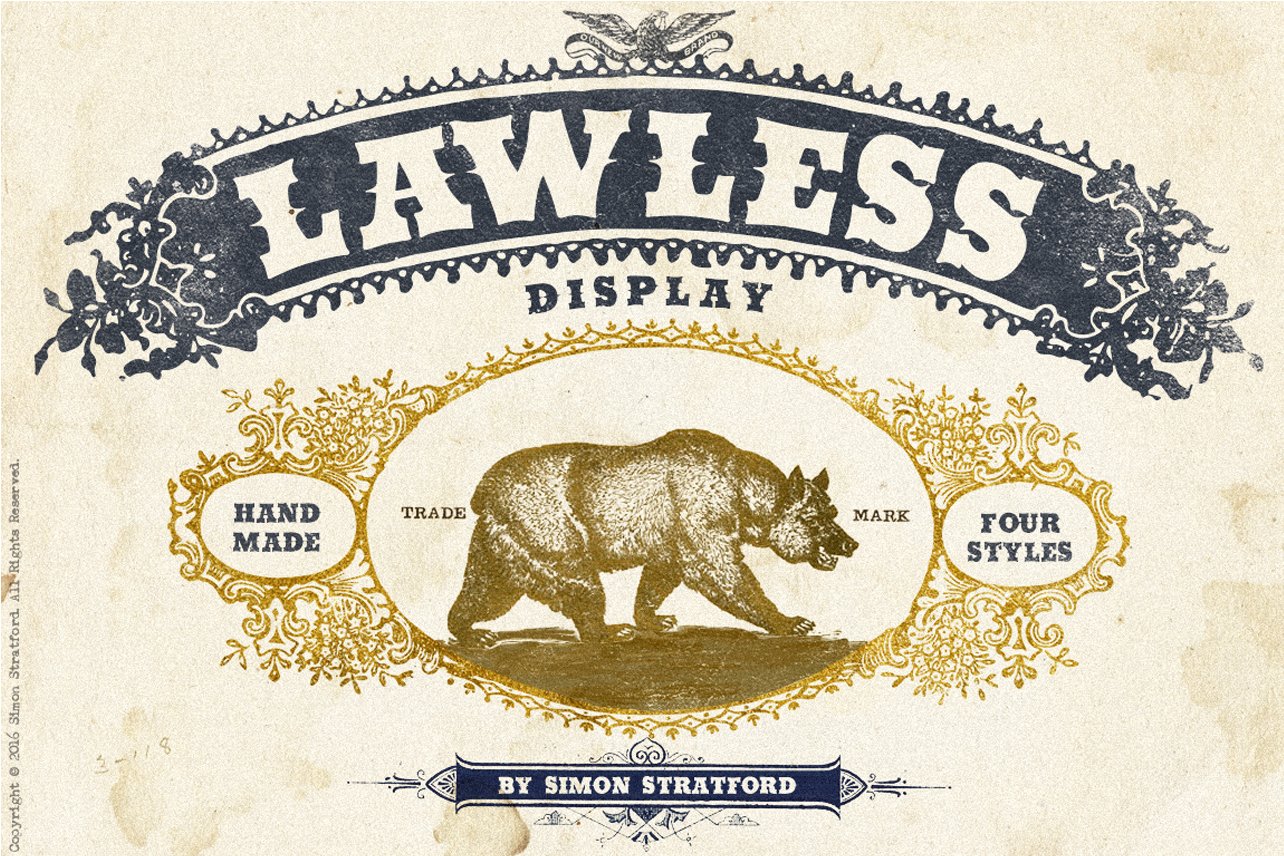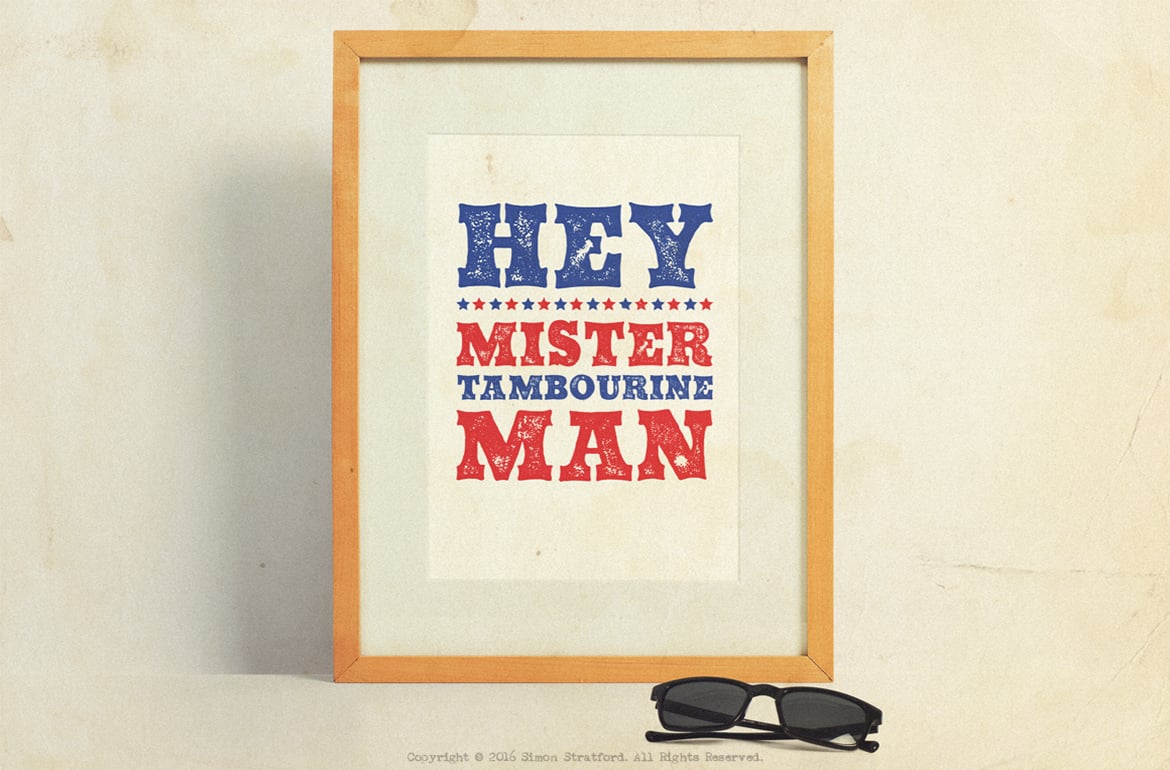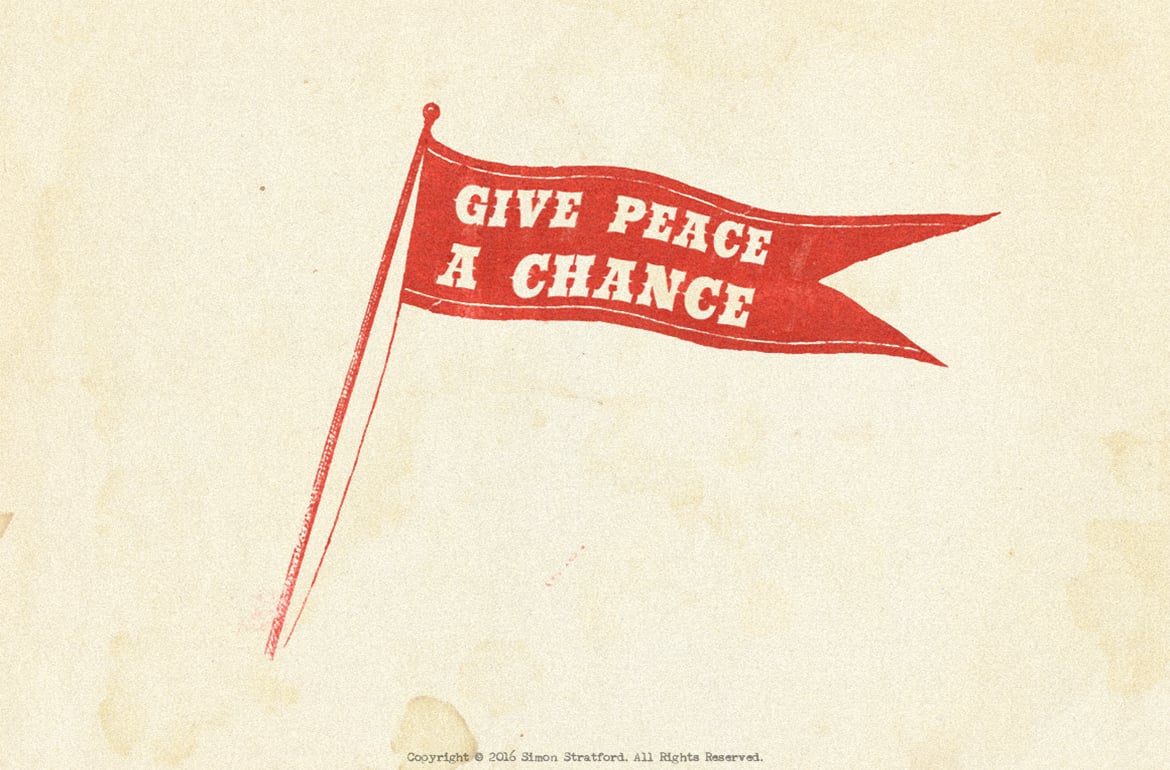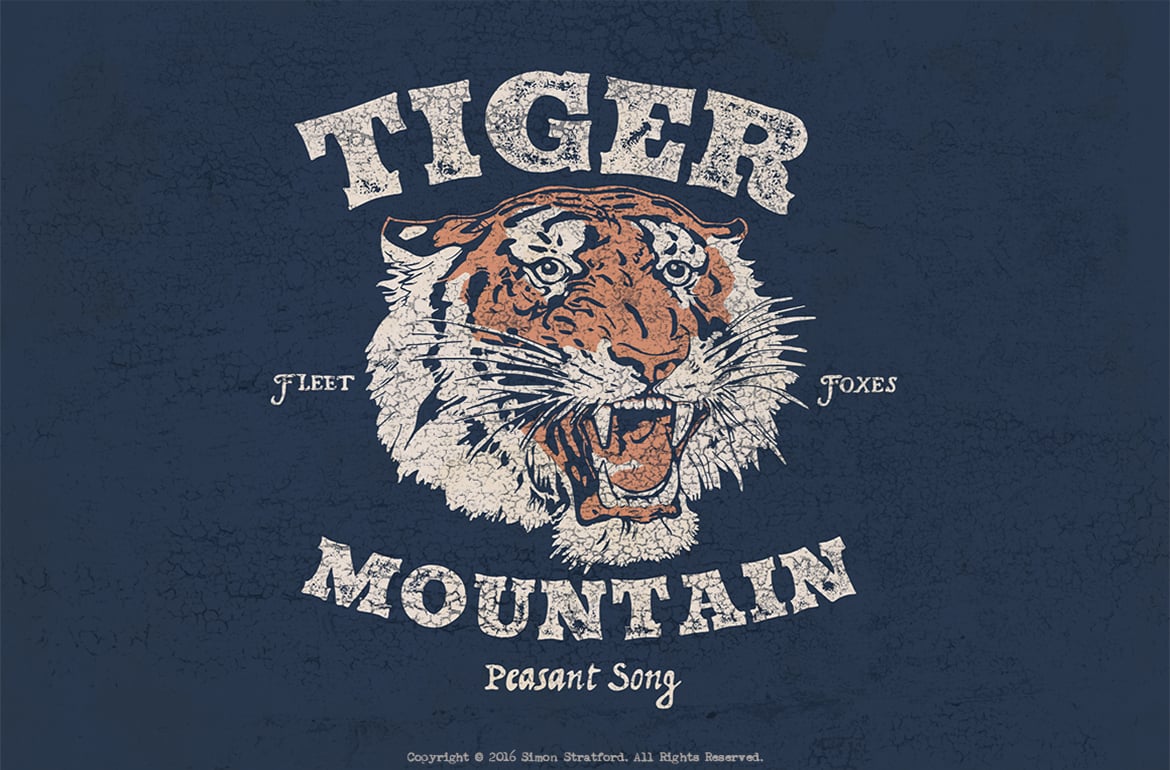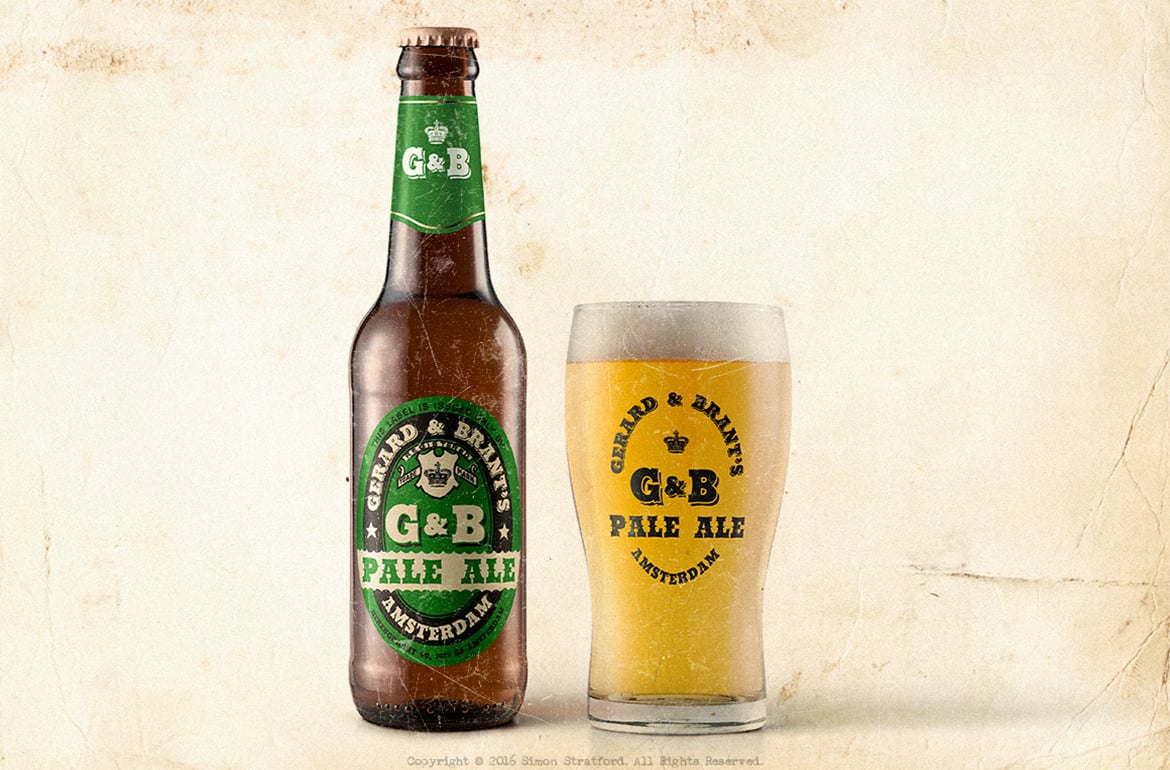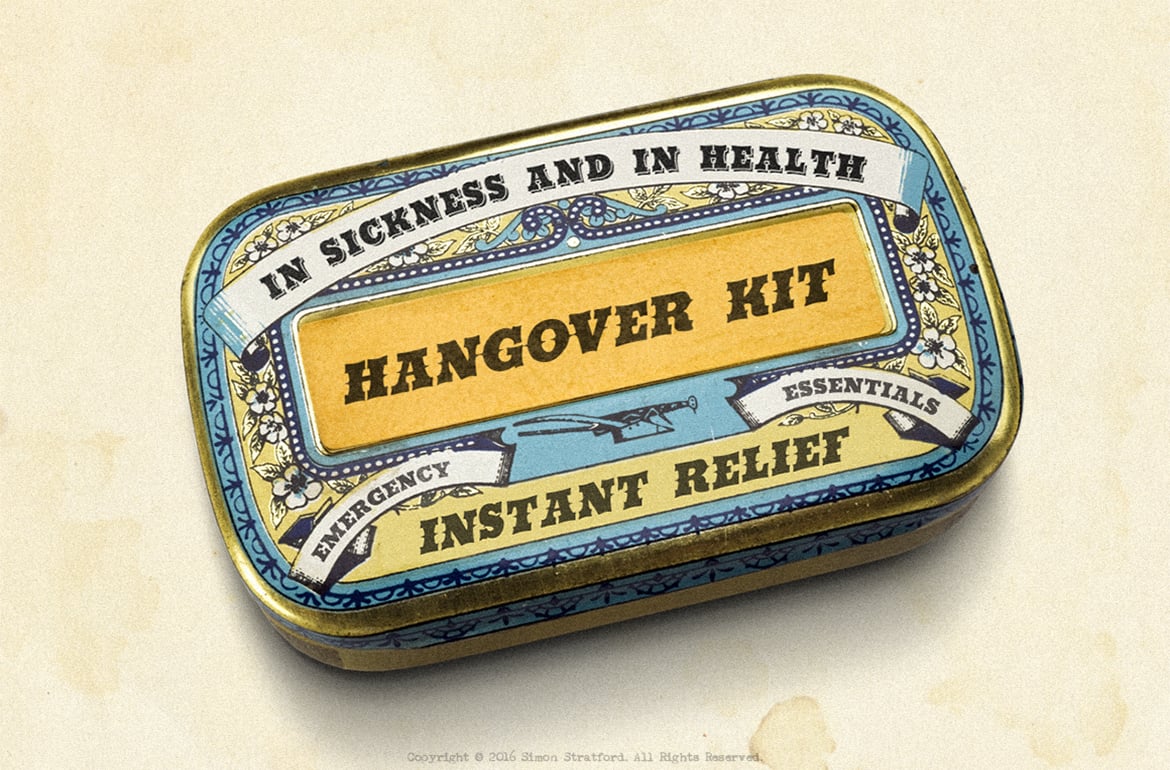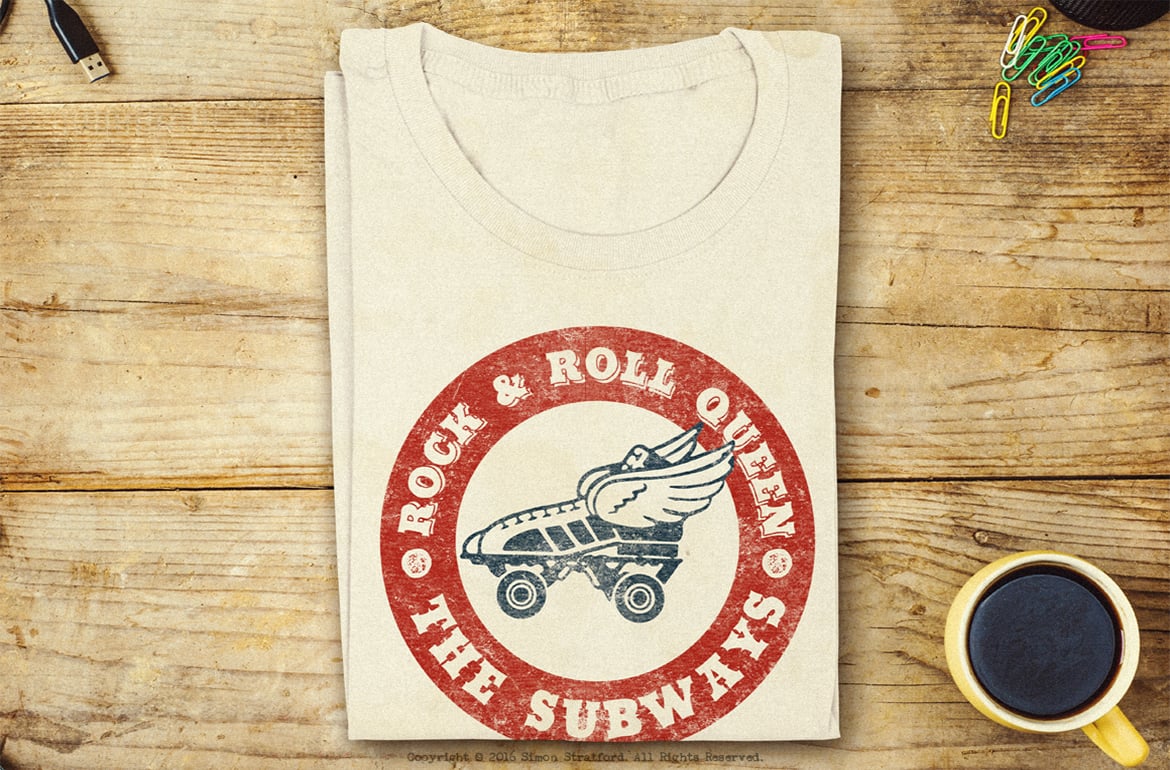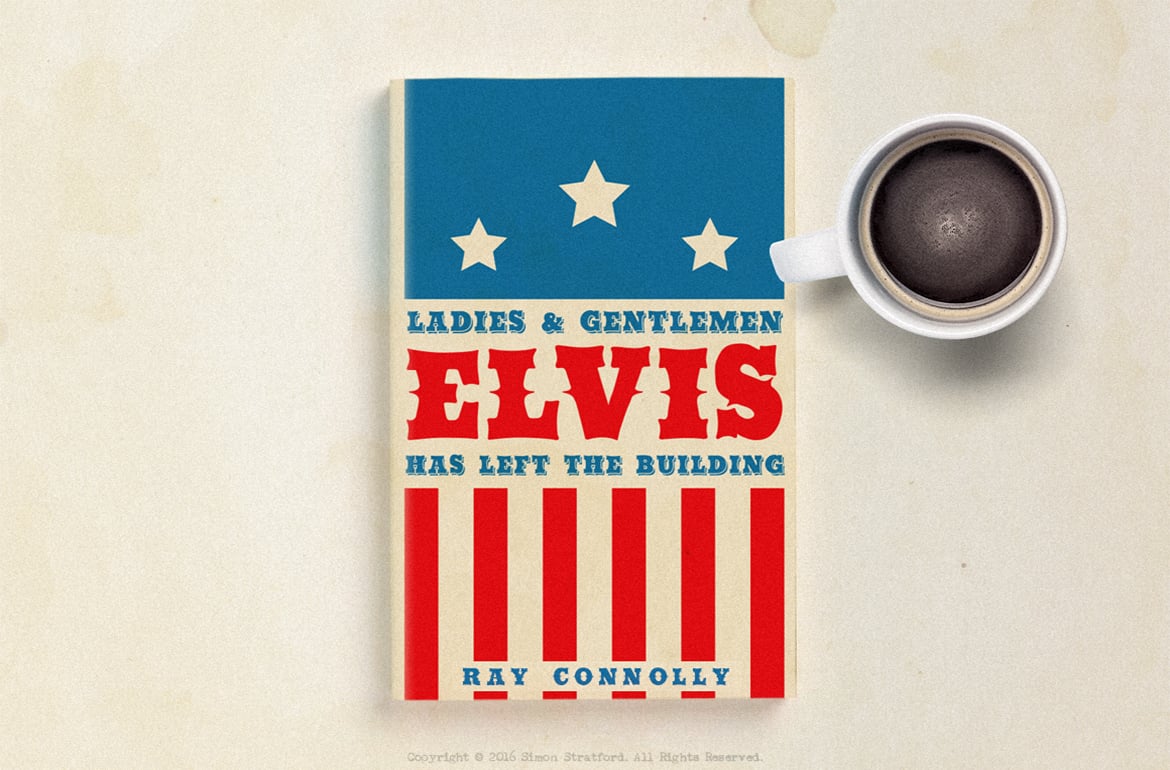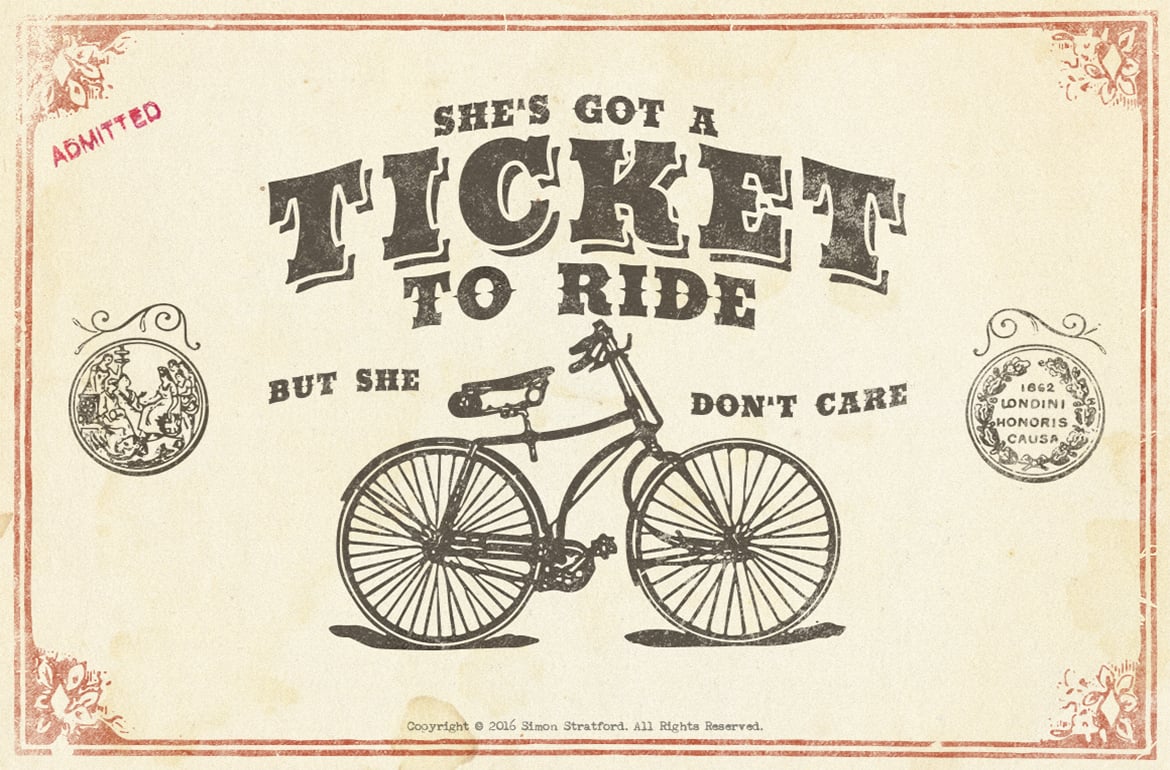
Lawless font
I started creating Lawless over a year ago, drawing it directly into adobe illustrator. I never finished it owing to the fact that I accidentally deleted the file.
Yes, it did make me want to punch myself in the face—repeatedly. I was so pissed I canned the project.
Until now.
I resurrected the idea but took it in a slightly different direction. Rather than uber clean lines, I decided to draw it with a pencil. Then let illustrator take the strain converting it to a font.
Inspired by the early American wood type of the 1800’s. It’s bold and brash and is the ideal typeface to get that vintage wild west look and feel.
Lawless comes in 4 different styles Regular, Grunge, Spur and Shadow. Easily mix and match them to get the look you’re after.
The font includes
- Upper and lowercase characters
- Numbers and punctuation
- Symbols
- Support for Eastern, Central and Western European countries
- 4 Different styles